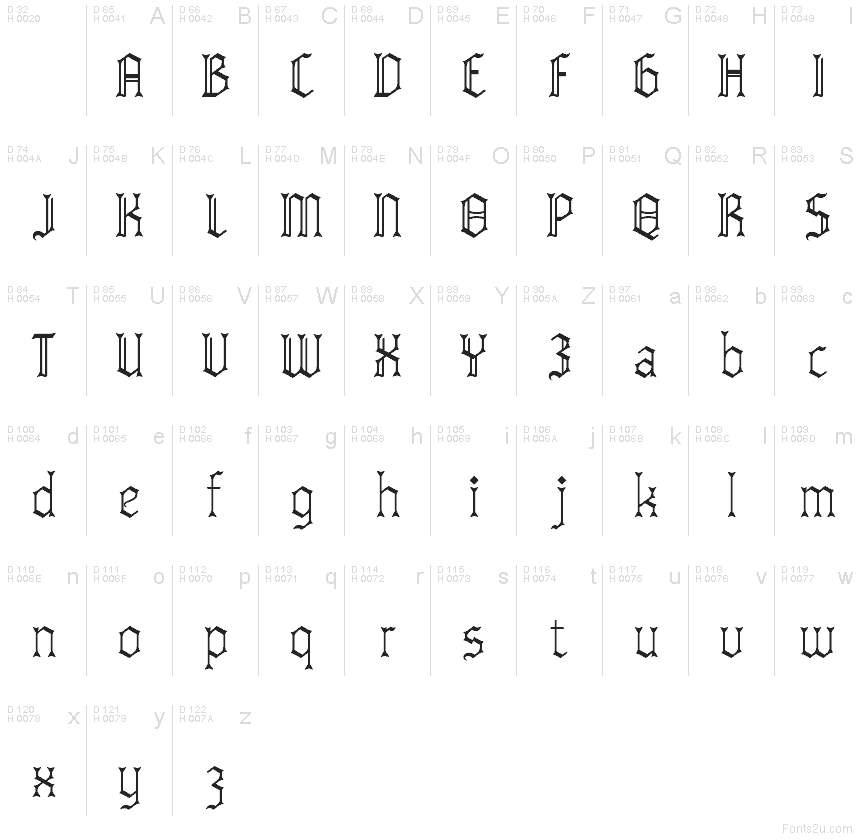
CS Drusilla Regular Demo
CS Drusilla font by Craft Supply Co. is a light, condensed gothic typeface with medieval inspiration. The historical influence on this font portrays itself through the fine details that build its letters and their slightly soft curves, making it both exquisite and unique.
This free gothic font will look amazing in book covers, posters, banners, T-shirt prints, social media posts, greeting cards, titles etc.